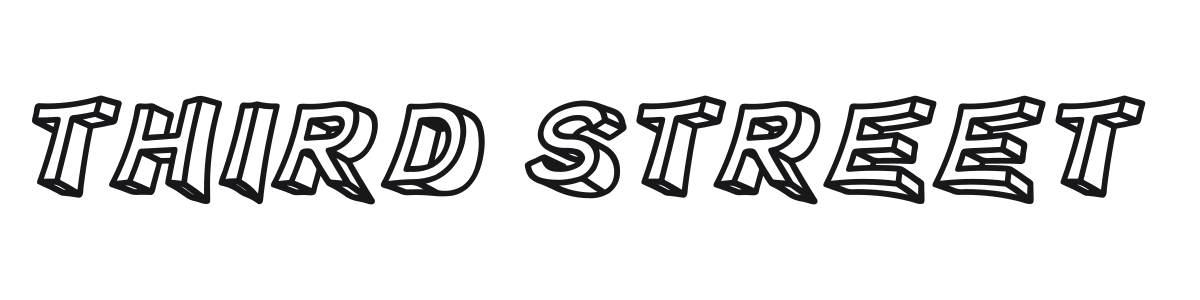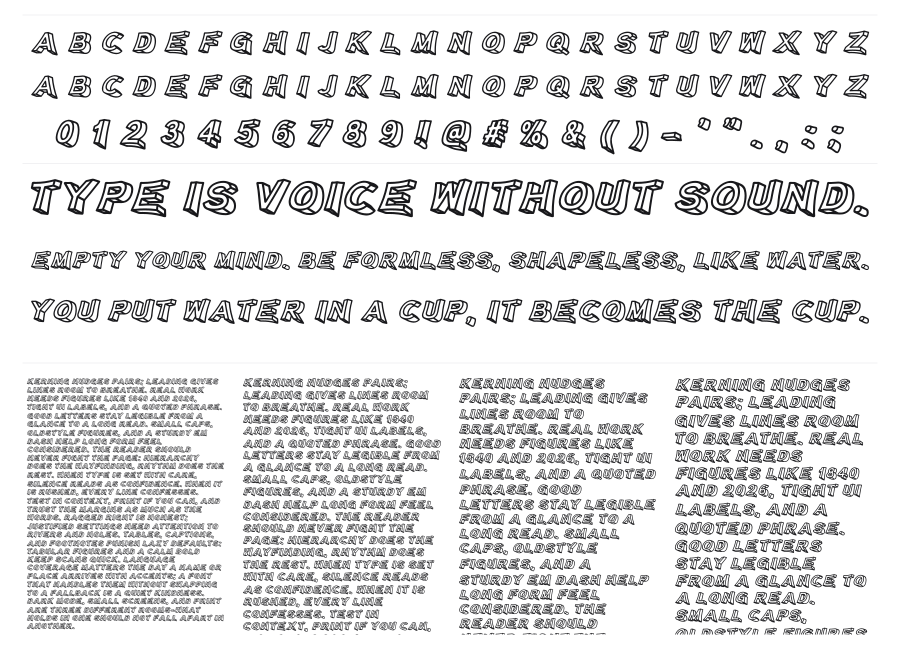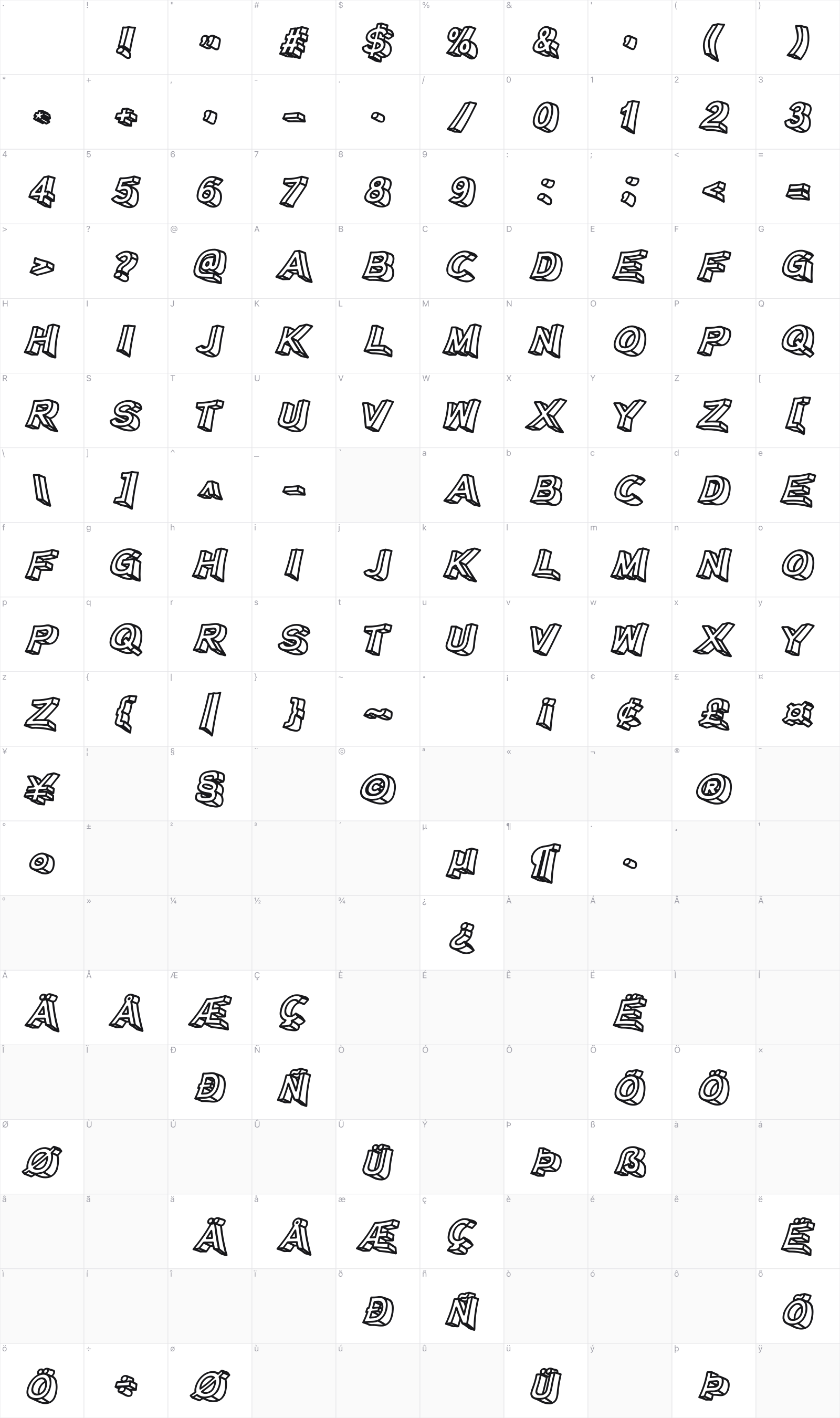
Third Street
Third Street is a bold italic outline font with a chunky extruded 3D shadow that evokes classic comic-book lettering and mid-century American signage. The rough hand-drawn outlines and heavy slant give it a kinetic, street-ready energy. It thrives at large sizes on posters, packaging, and anywhere a design needs personality fast.